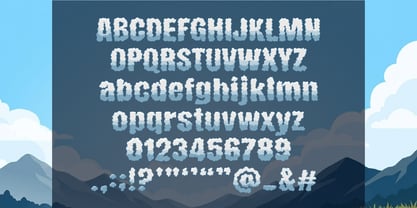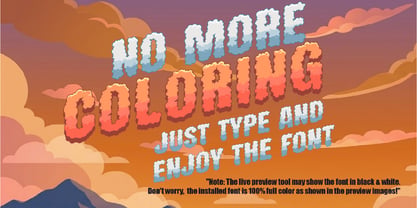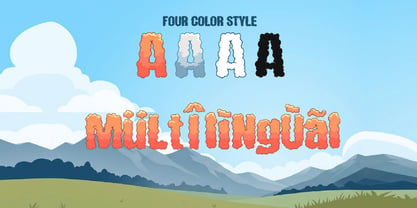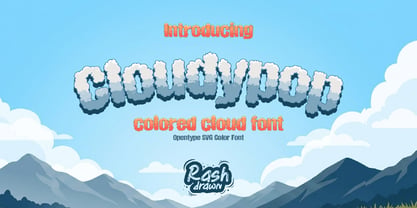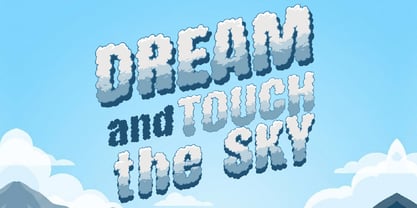
Cloudypop
The Cloudypop Font Family was designed by Dadan Wildan and published by Rashdrawn. Cloudypop contains 4 styles and family package options. More about this family
Cloudypop -Colored Cloud Font Introducing Cloudypop, a vibrant and playful Color Font with 4 built-in, ready-to-use color styles. Each character is a soft, hand-drawn cloud with beautiful pre-integrated gradients. Instant Color - No Styling Required! Just select the style and go! Perfect for: Children's Books & Toy Branding Greeting Cards & Stationary Apparel Graphics (T-shirt prints) Nature-Themed Posters & Flyers Character map featuring Uppercase & Lowercase letters (A-Z), Numbers (0-9), Punctuation, Accents, and key symbols (@, _, &, #). Key Features: 4 Pre-Designed Styles: Instant color choices for maximum versatility Multilingual Support: Perfect for international projects with accents and special characters. Hand-Drawn Cloud Texture: A unique, soft, and playful aesthetic. Simplicity meets creativity. Touches the sky and find your peace with Cloudypop! Ready to bring a dreamlike stillness to your designs.
Cloudypop